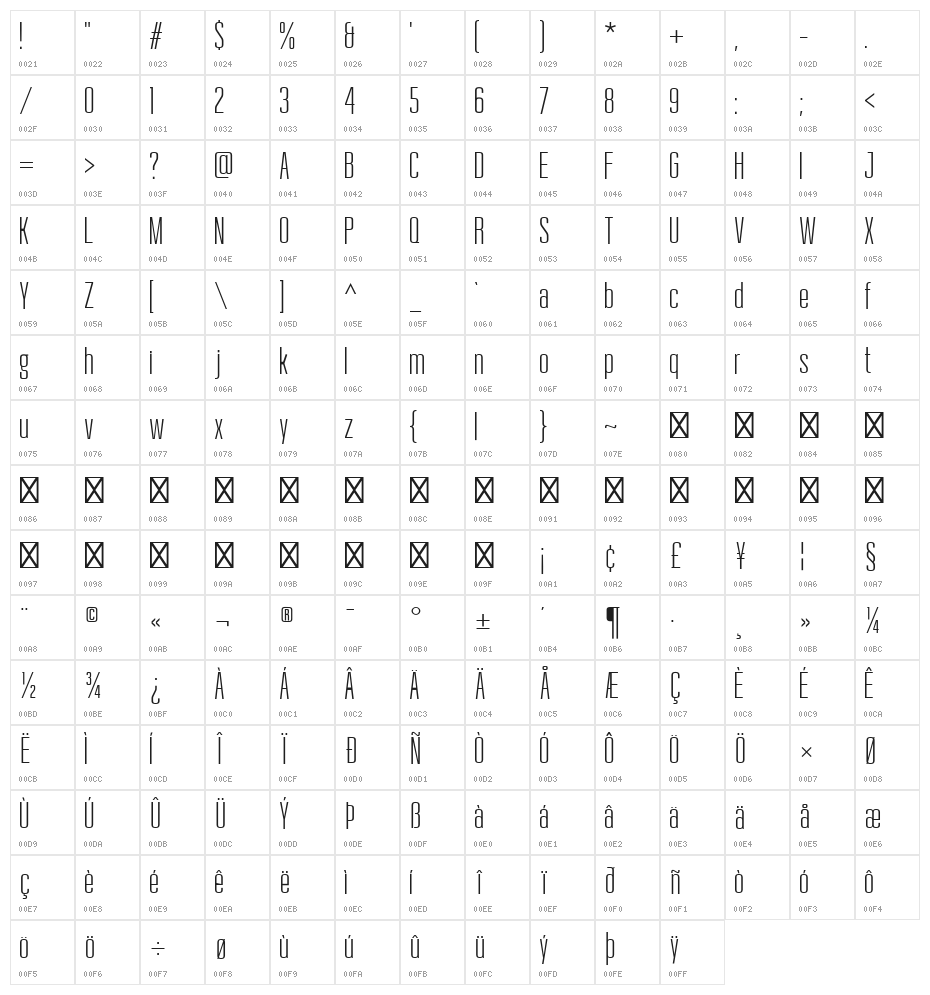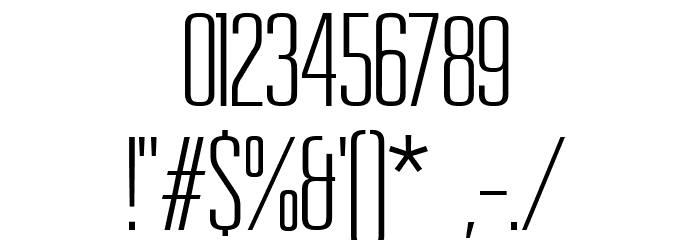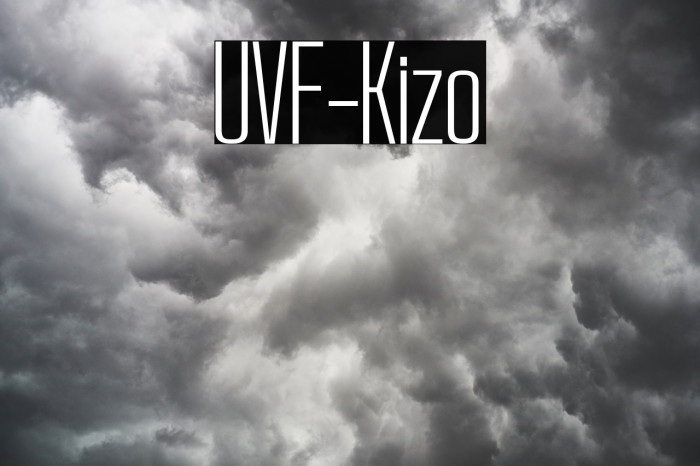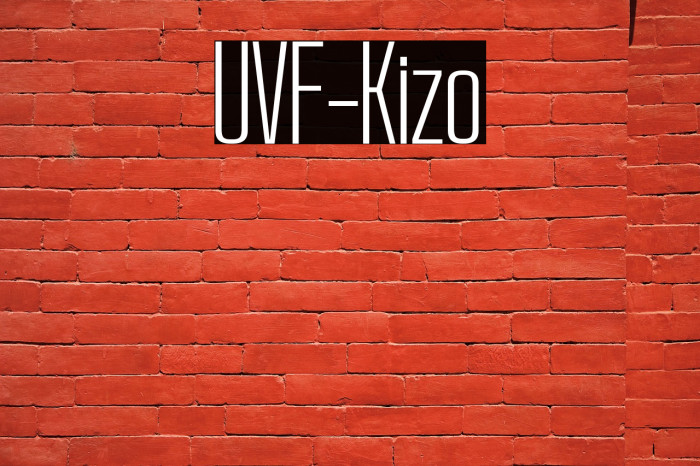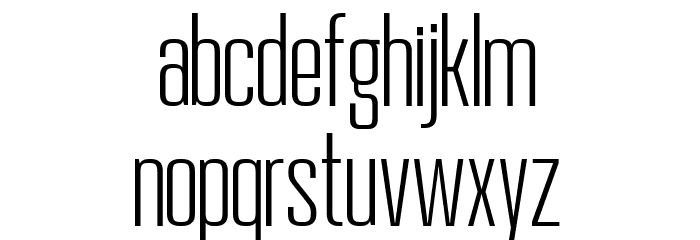
UVF-Kizo Font
UVF-Kizo Description
This font features a modern and sleek design with tall, narrow characters that convey a sense of elegance and sophistication. The uppercase letters are uniform in height, while the lowercase letters maintain a consistent style, enhancing readability. The numerals are distinct and align well with the overall aesthetic. Special characters are crafted with precision, adding to the font's versatility. The clean lines and minimalistic approach make it suitable for a variety of design applications. Its geometric structure and uniform stroke width contribute to a contemporary and professional appearance.
| Use Case | Headlines, Logos, Digital interfaces |
| Proposed Projects | Ideal for branding, editorial design, advertising, and digital interfaces. |